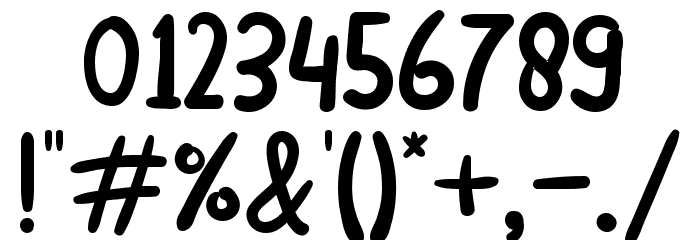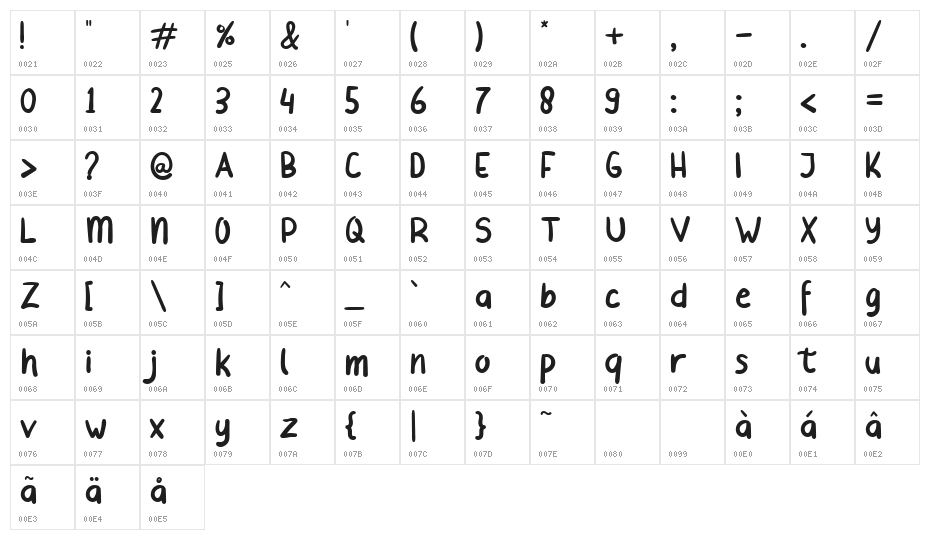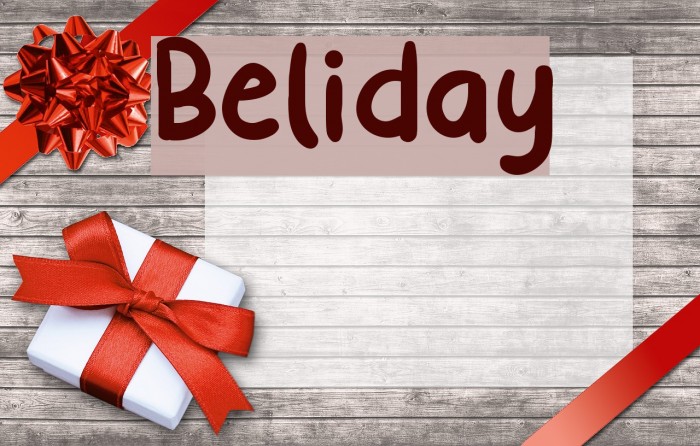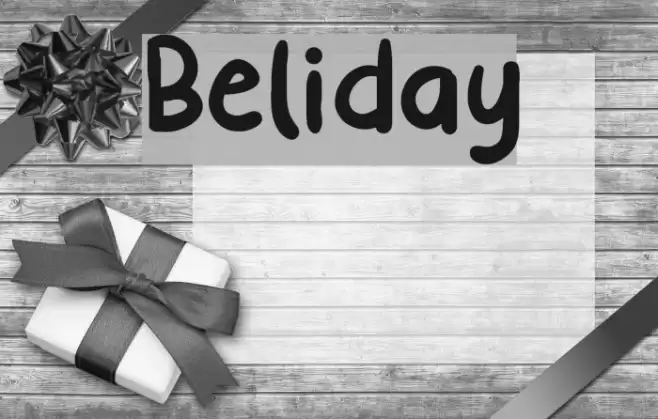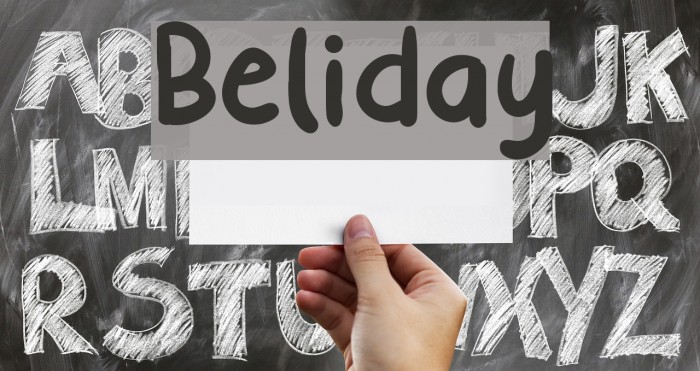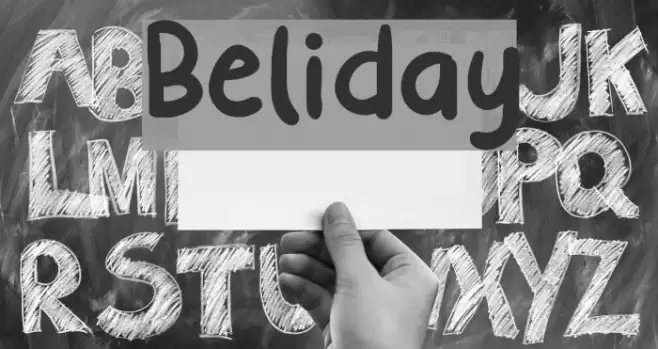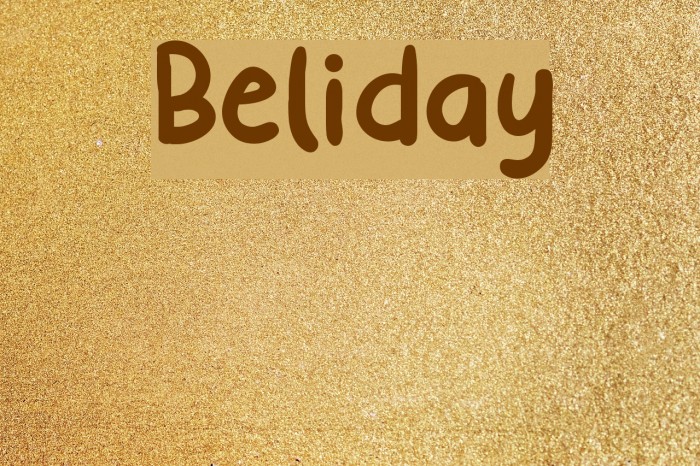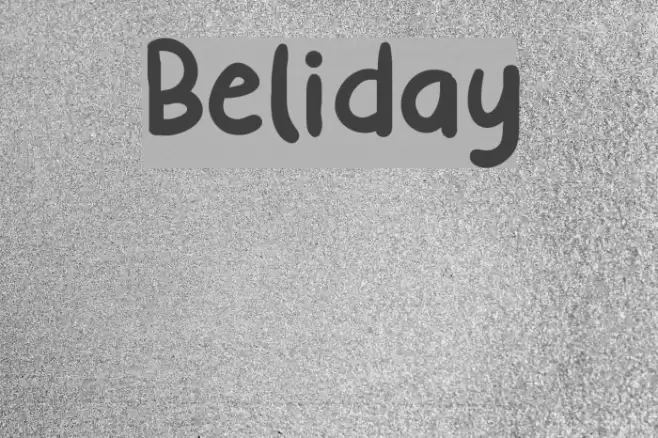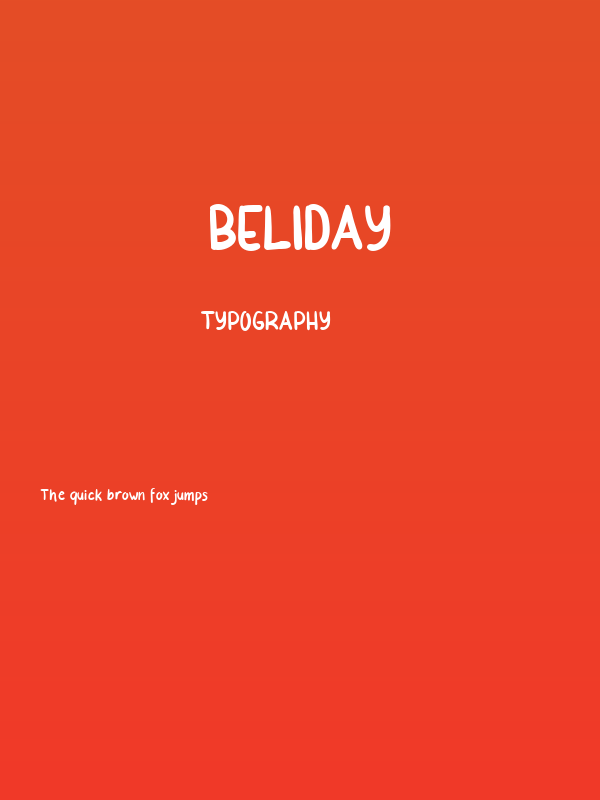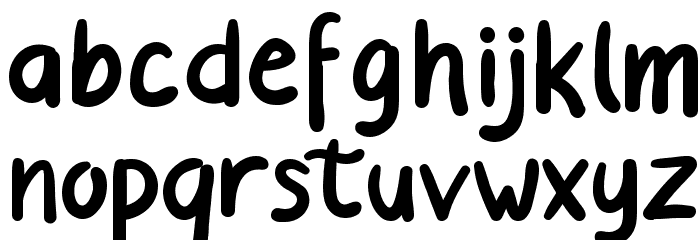
Beliday Font
Beliday Description
This font features a playful and casual handwritten style, characterized by its rounded and slightly irregular letterforms. The strokes are consistent in thickness, giving it a uniform appearance while maintaining a friendly and approachable vibe. The uppercase letters are bold and prominent, while the lowercase letters maintain a similar weight, ensuring readability. Numbers and special characters are designed to match the overall style, making them easily recognizable. This font's informal nature makes it suitable for projects that require a personal touch.
| Use Case | Headlines, Informal text, Branding |
| Proposed Projects | Ideal for greeting cards, children's books, playful branding, and social media graphics. |